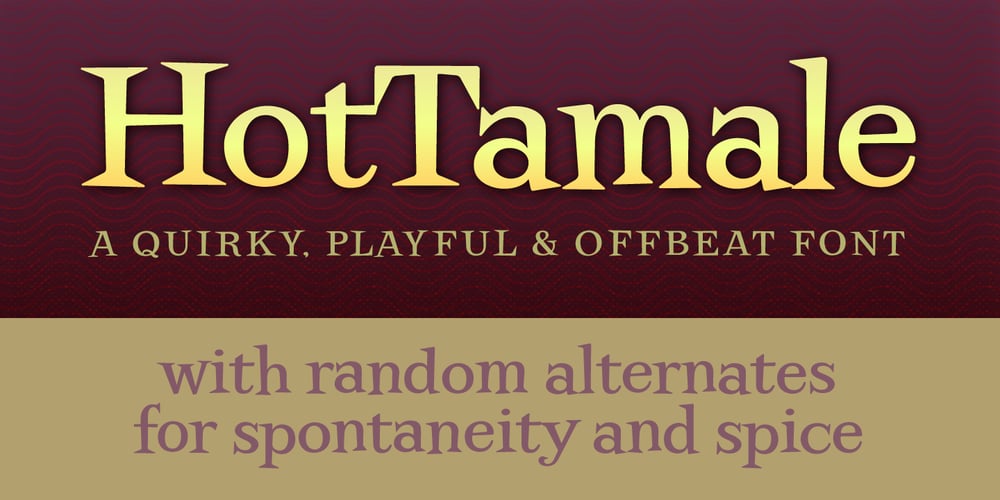
HotTamale Font Family was designed by Jeff Kahn and published by Jeff Kahn. HotTamale contains 1 styles and family package options. HotTamale is suitable for display and text. Its large x-height provides excellent legibility at small point sizes. It is bouncy and playful, yet unlike some fonts that are exaggerated or distorted in style, HotTamale is highly refined. Avoid the monotony of repeating glyphs! HotTamale includes OpenType contextual alternates for a random and spontaneous appearance. HotTamale is vivacious, warmhearted, direct, and suitable for packaging, restaurant use, websites, magazines, lively heads, sub-lines, and children’s books.